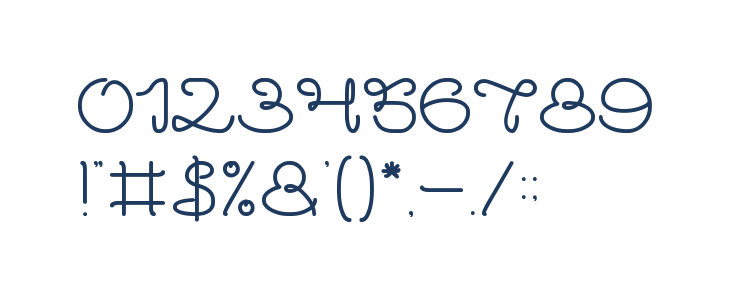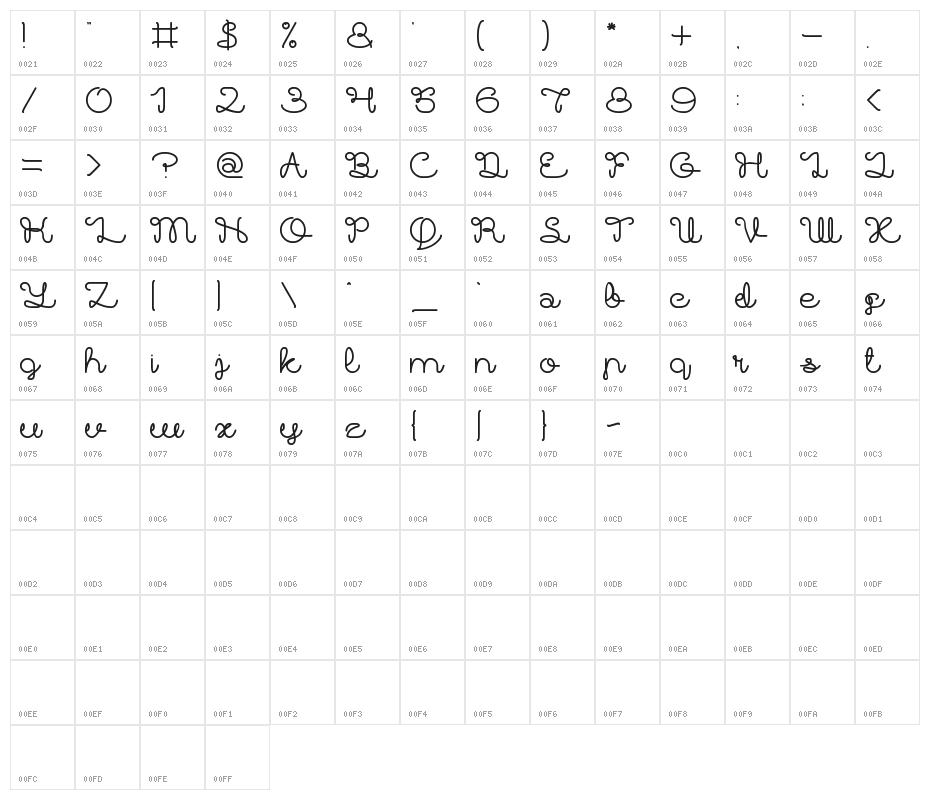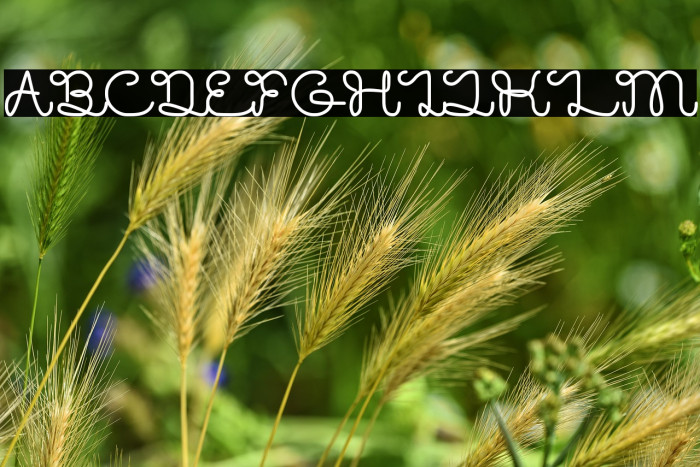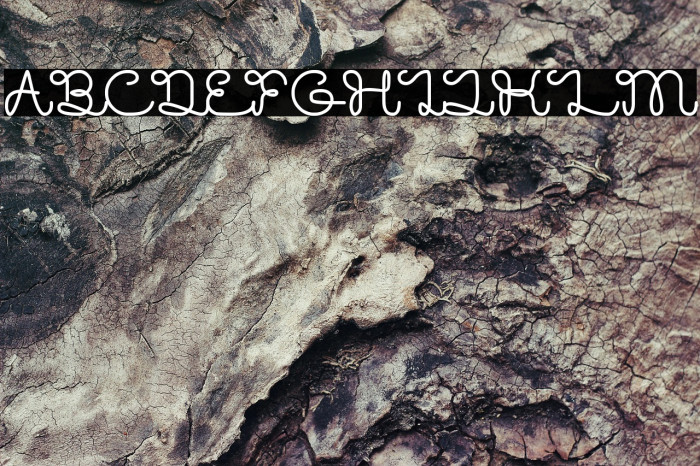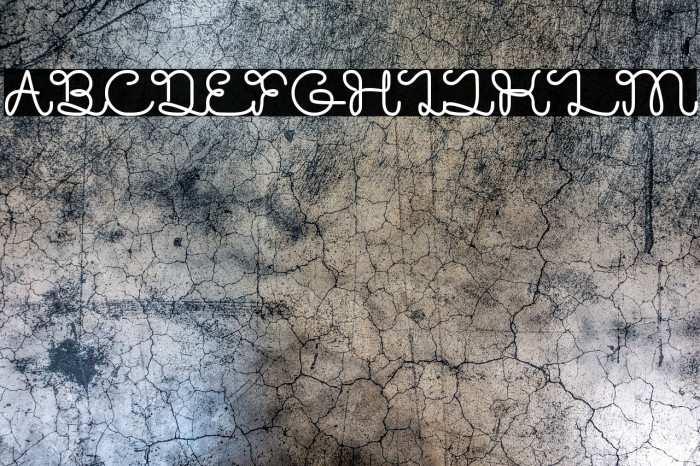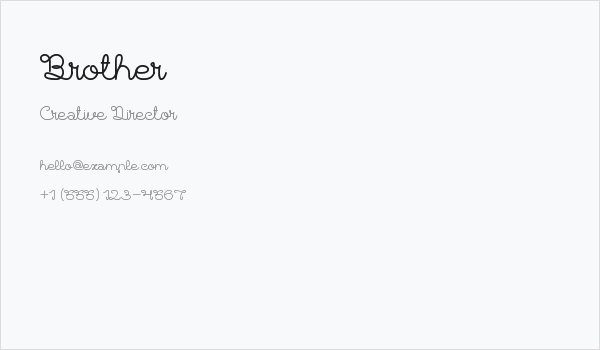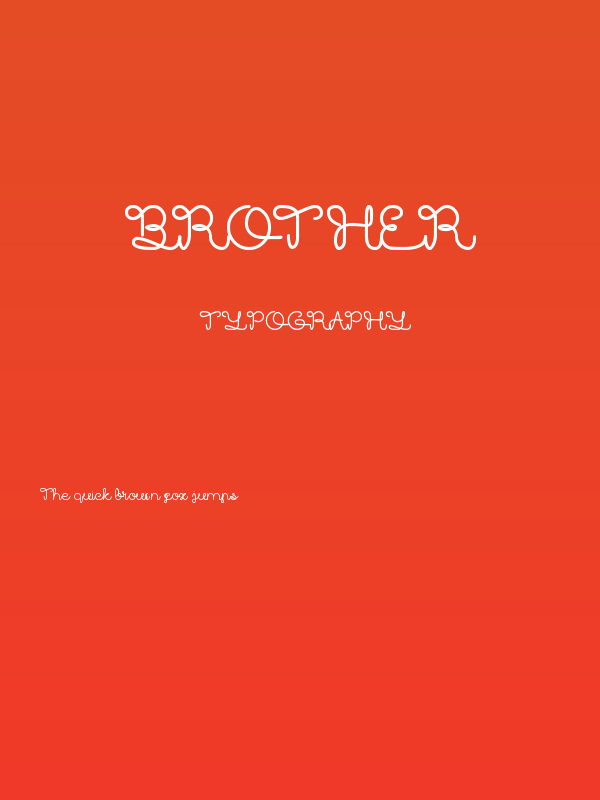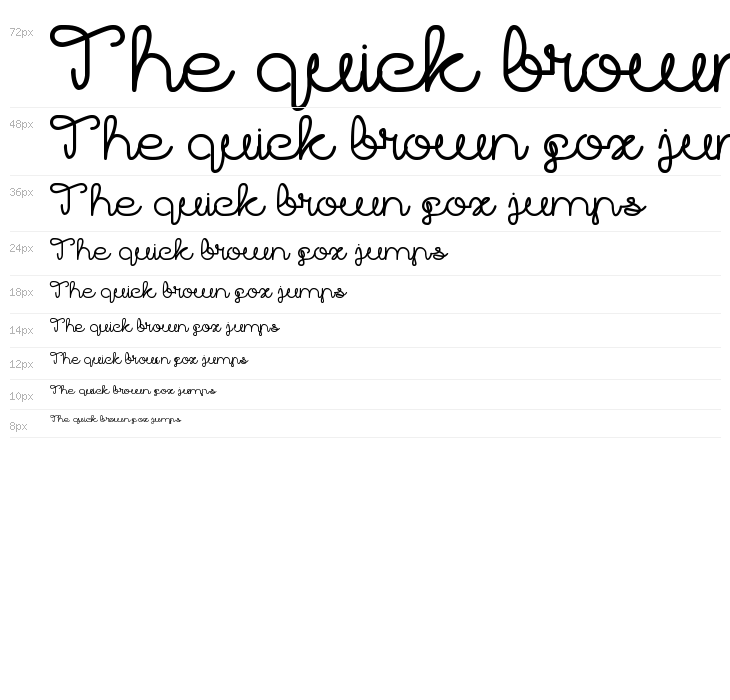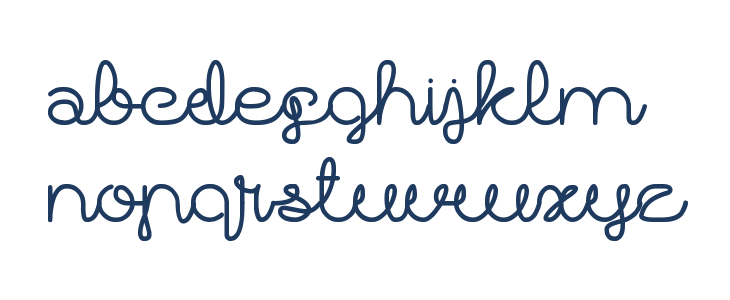
Brother Font
Brother Description
This font features a playful and whimsical design with a continuous, looping style that mimics handwriting. The characters are interconnected, creating a fluid and dynamic appearance. The uppercase and lowercase letters maintain a consistent flow, with rounded edges and a casual feel. Numbers and special characters follow the same aesthetic, ensuring a cohesive look across all elements. The font's unique style makes it stand out, offering a creative and informal vibe suitable for various design projects.
| Use Case | Logos, Headlines, Creative projects |
| Proposed Projects | Ideal for creative projects such as greeting cards, invitations, children's books, and playful branding materials. |